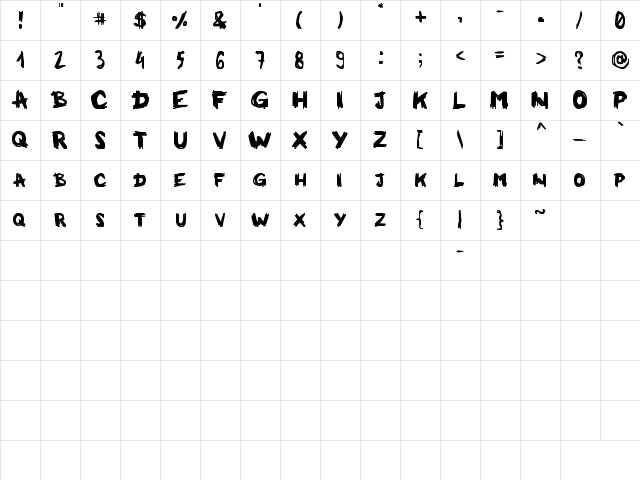
Milkman Conspiracy Milky
Design Context for Milkman Conspiracy Typeface
Milkman Conspiracy is a composed and adaptable typeface that performs quietly and consistently across a wide range of design contexts.
Pro Tip: Use Milkman Conspiracy in both headline and body roles to test its range before committing to a single application.